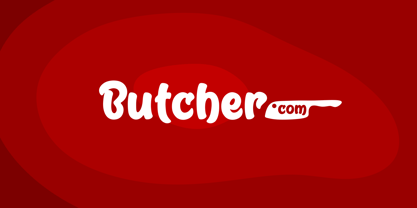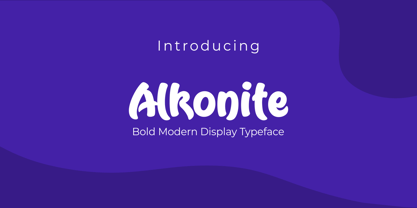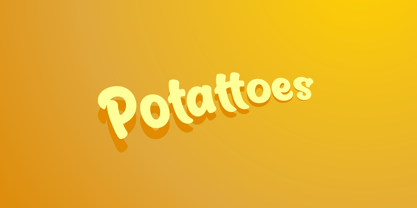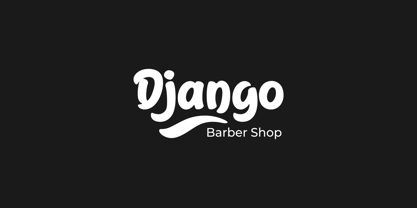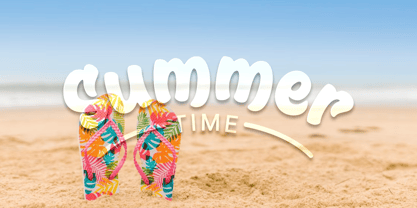
Alkonite
La familia tipográfica Alkonite fue diseñada por Anthonie Van Hayu y publicada por ARToni. Alkonite contiene 1 estilos. Más información sobre esta familia
Alkonite is a bold, modern display typeface that fuses geometric precision with a touch of futuristic elegance. Its sharp edges and balanced proportions give it a commanding presence, while subtle curves soften the overall aesthetic, making it versatile for both digital and print design. Ideal for hero titles, branding, and creative projects, Alkonite conveys strength, clarity, and innovation. Whether used in logos, posters, or motion graphics, it stands out as a statement font that captures attention and leaves a lasting impression.
Each letterform carries a sense of precision and strength. Its smooth curves and angular edges create a dynamic rhythm, balancing elegance with power.